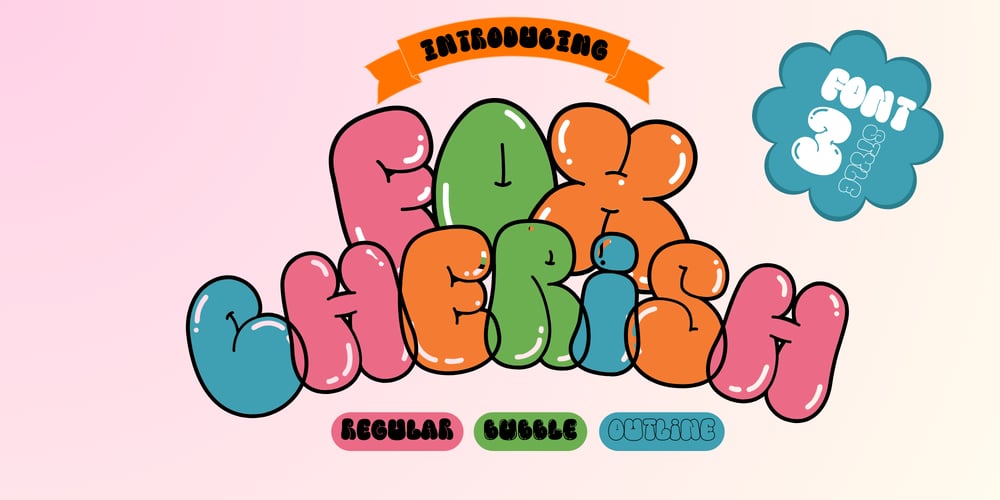
Fox Cherish Bubble Font Family was designed by Rattana Rattanawan and published by Fox7. Fox Cherish Bubble contains 3 styles and family package options. Fox Cherish is a 3 style font that cool cute and playful display font that adds a captivating and energetic touch to your designs. With its fun and funky letterforms, this font is perfect for adding a touch of personality to any design project. Whether you’re creating t-shirts, stickers, children’s book covers, social media posts, or anything in between, Fox Cherish font is the perfect choice for making your designs stand out.